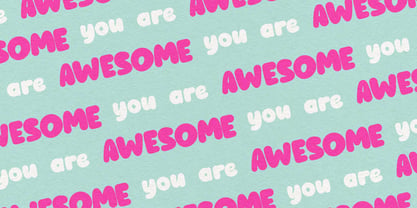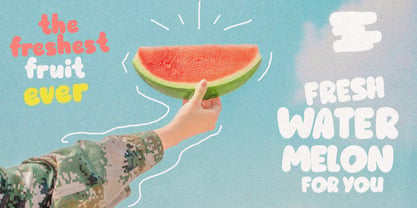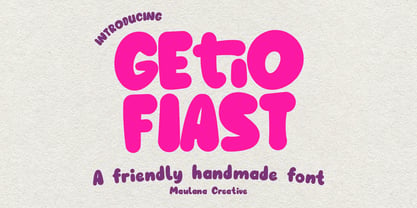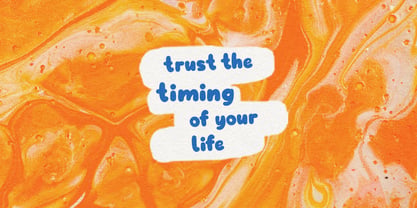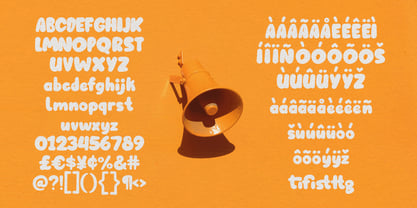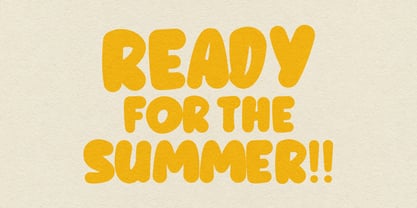
MC Getio Fiast
by Maulana Creative
The MC Getio Fiast Font Family was designed by Gilang Maulana and published by Maulana Creative. MC Getio Fiast contains 1 styles. More about this family
Getio Fiast is a friendly handwritten handmade font. With bold stroke, fun character with a bit of ligatures and alternates. To give you an extra creative work. Getio Fiast font support multilingual more than 100+ language. This font is good for logo design, Social media, Movie Titles, Books Titles, a short text even a long text letter and good for your secondary text font with sans or serif. Make a stunning work with Getio Fiast font.